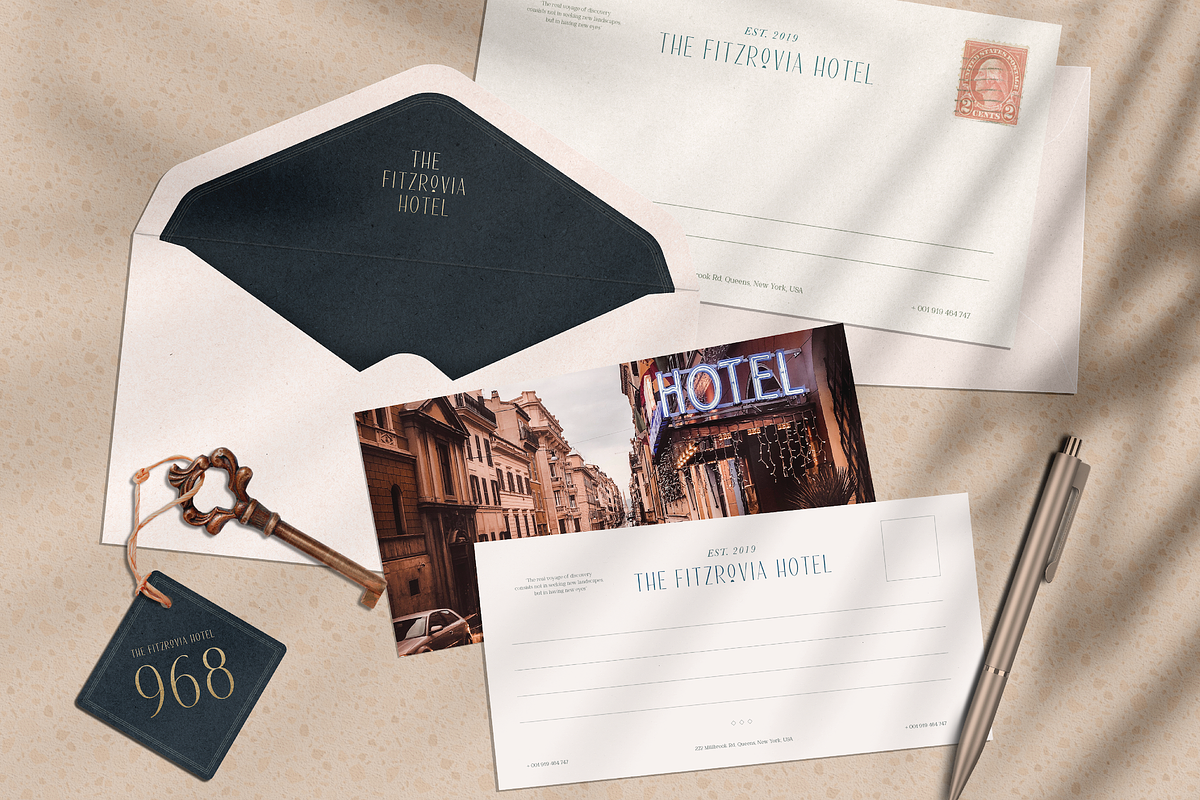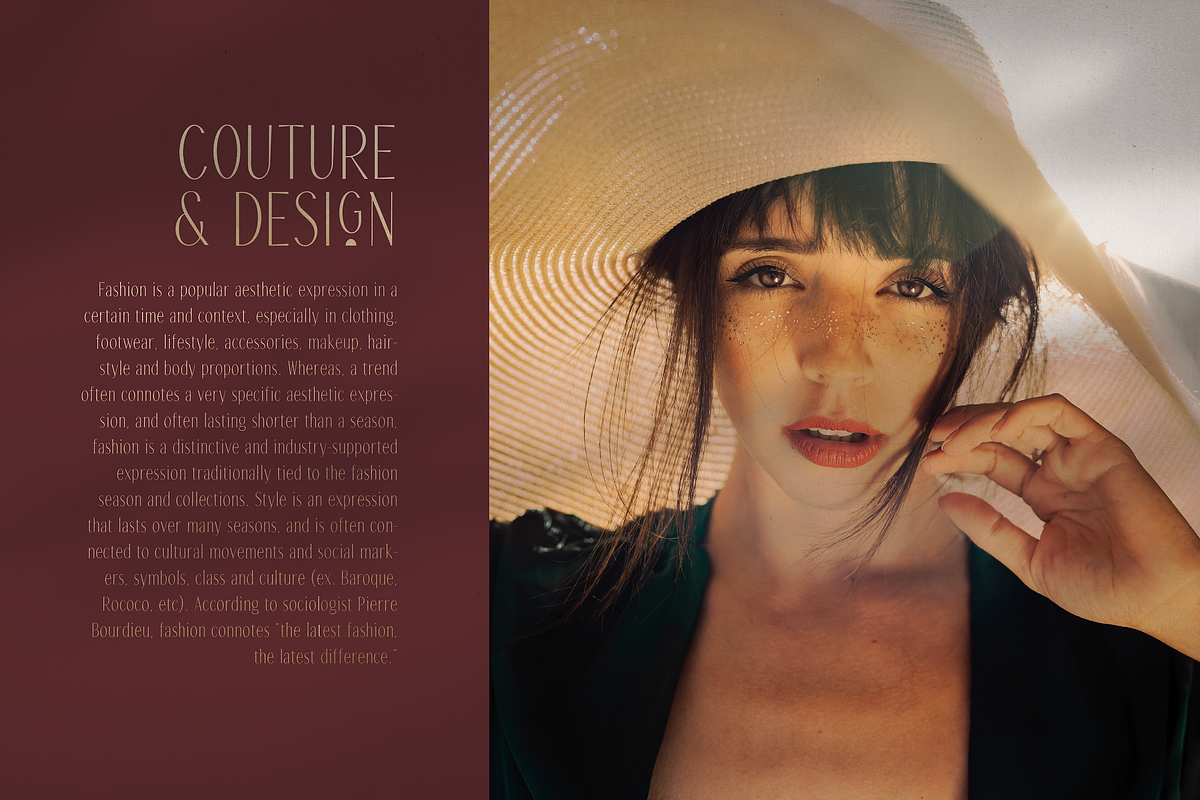
Fiora Font | Modern Display + Extras
If you need a touch of class and modernity to add to your designs, then Fiora was made for you! This font was created to give a deco fresh look to all your creations. Fiora features a condensed appearance, clean lines, all with a touch of retro quirk. This font will work perfectly in logo work as well as brand and web design. Also, this download comes with a bonus!
Fiora includes an uppercase and lowercase alphabet, all punctation and numerals, as well as multilingual support. Try the font out for yourself with by typing your text into the text preview box below!